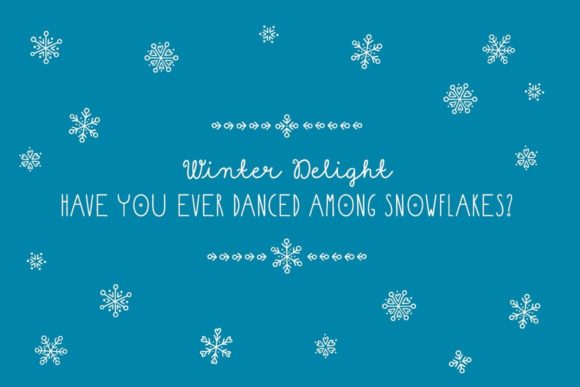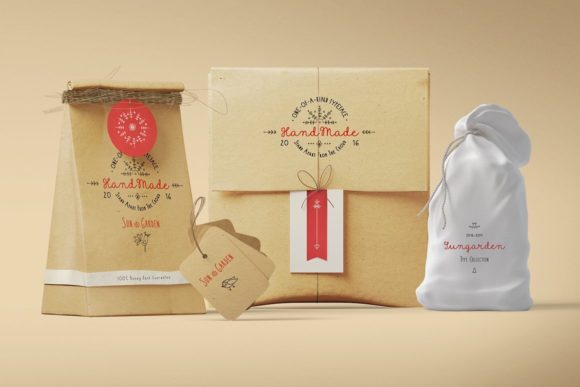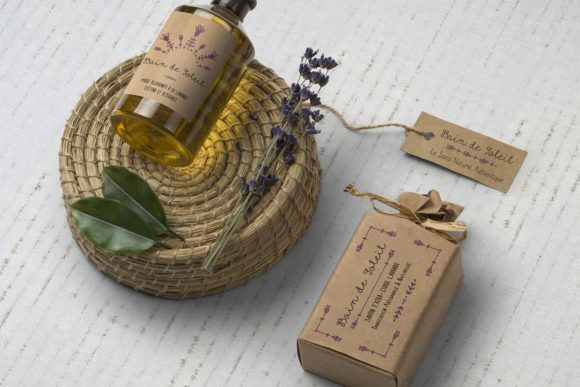
About Sungarden Font
Sungarden is a lovely and delightful dingbat font designed to help you generate colorful and creative designs by typing capital and small letters as well as numbers. Its garden-themed illustrations make it perfect for projects that need a touch of cheer and serenity, with its many beautiful and graceful pictures, the results will be nothing short of spectacular. Sungarden is a versatile and intuitive font, making it easy to use for a wide range of projects, from designing delicate and soothing business cards to adding a touch of nature to a decorative pattern or other visual element.
One of the best things about Sungarden is its lovely and graceful illustrations. The many garden-centered pictures make Sungarden unique and memorable for projects that need a touch of cheer and serenity. Whether you’re designing a business card for a friendly florist or adding a touch of nature to a decorative pattern or other visual element, Sungarden will add a touch of character and personality to your design.
Another great thing about Sungarden is how easy to use it is. With a few keystrokes, users can create a wide range of colorful and memorable designs. The many beautiful and serene pictures make Sungarden easy to read and use, while its versatile design makes it perfect for a wide range of projects. Both its small and large fonts come with clear, concise instructions to help users get started quickly.
In addition to its lovely designs and calming beauty, Sungarden is also just great design. Its many graceful and expressive illustrations make it a perfect option for projects that need a touch of serenity, peace, and balance. Whether you’re designing a business card for a friendly florist or adding a touch of nature to a decorative pattern or other visual element, Sungarden will add a touch of character and personality to your design.
Overall, Sungarden is a charming and memorable font that can help you create colorful and creative designs. Whether you’re designing a business card for a friendly florist or adding a touch of nature to a decorative pattern or other visual element, Sungarden’s many beautiful and serene pictures make it an excellent option for projects that need a touch of cheer, serenity, and balance.